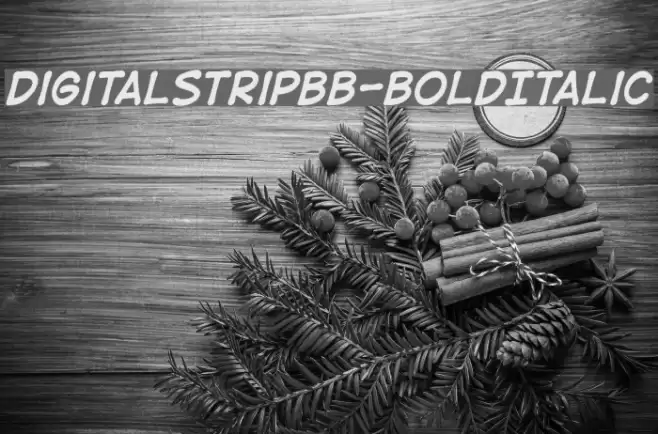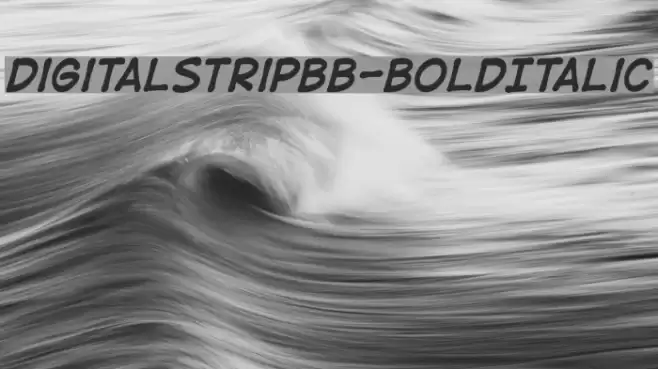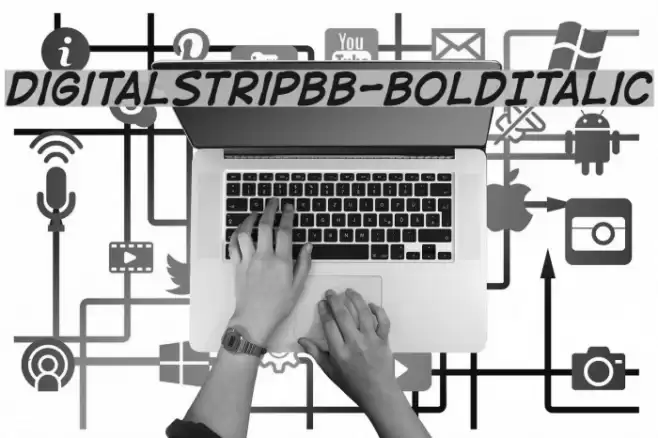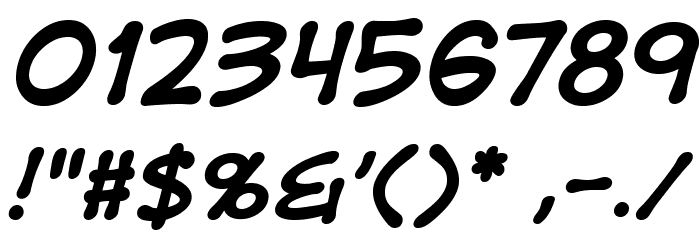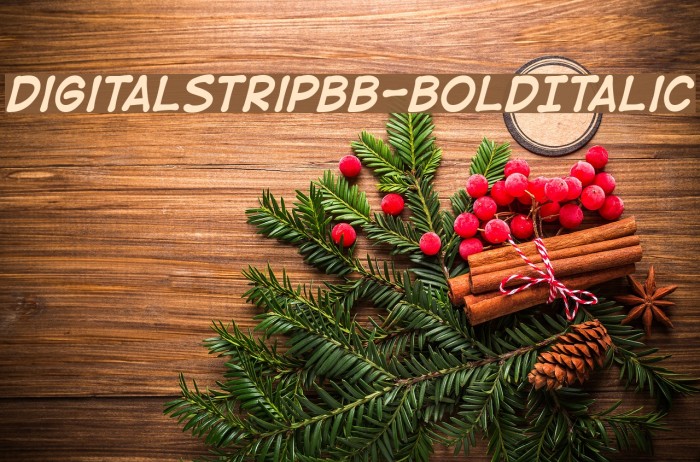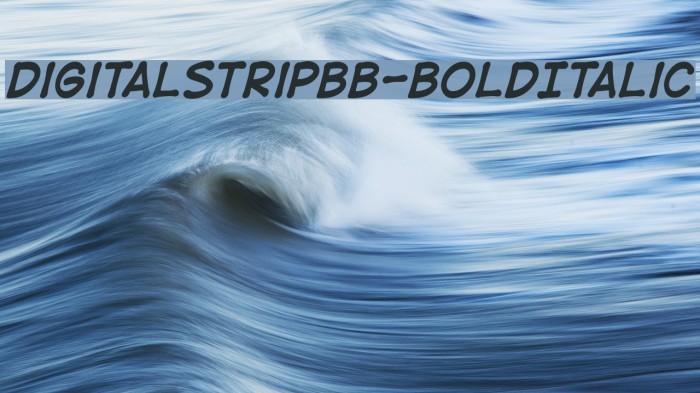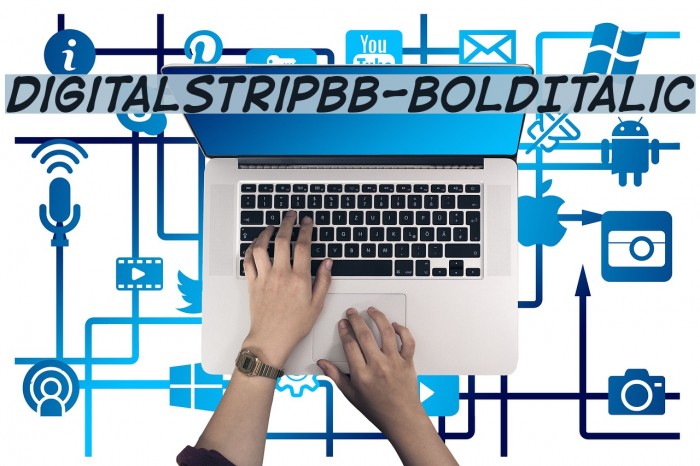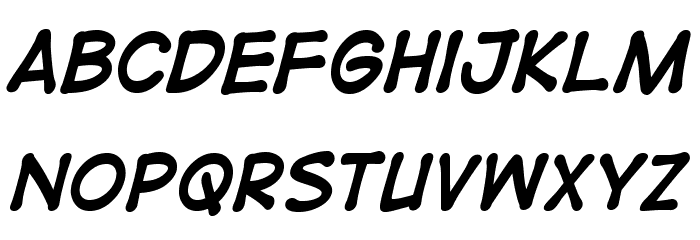
DigitalStripBB-BoldItalic Font
DigitalStripBB-BoldItalic Description
This font features a bold and italicized style with a playful, handwritten appearance. The characters are slightly slanted, giving a dynamic and energetic feel. The strokes are thick and consistent, providing a strong visual impact. The rounded edges and smooth curves add a friendly and approachable touch, making it suitable for informal and creative projects. The numbers and special characters maintain the same bold and italicized style, ensuring uniformity across all elements.
A bold, italicized, handwritten-style font with a playful and dynamic appearance from Uncategorized fonts.
- Proposed Projects: Ideal for comic strips, children's books, playful branding, and creative posters.
- Overall Style: Playful